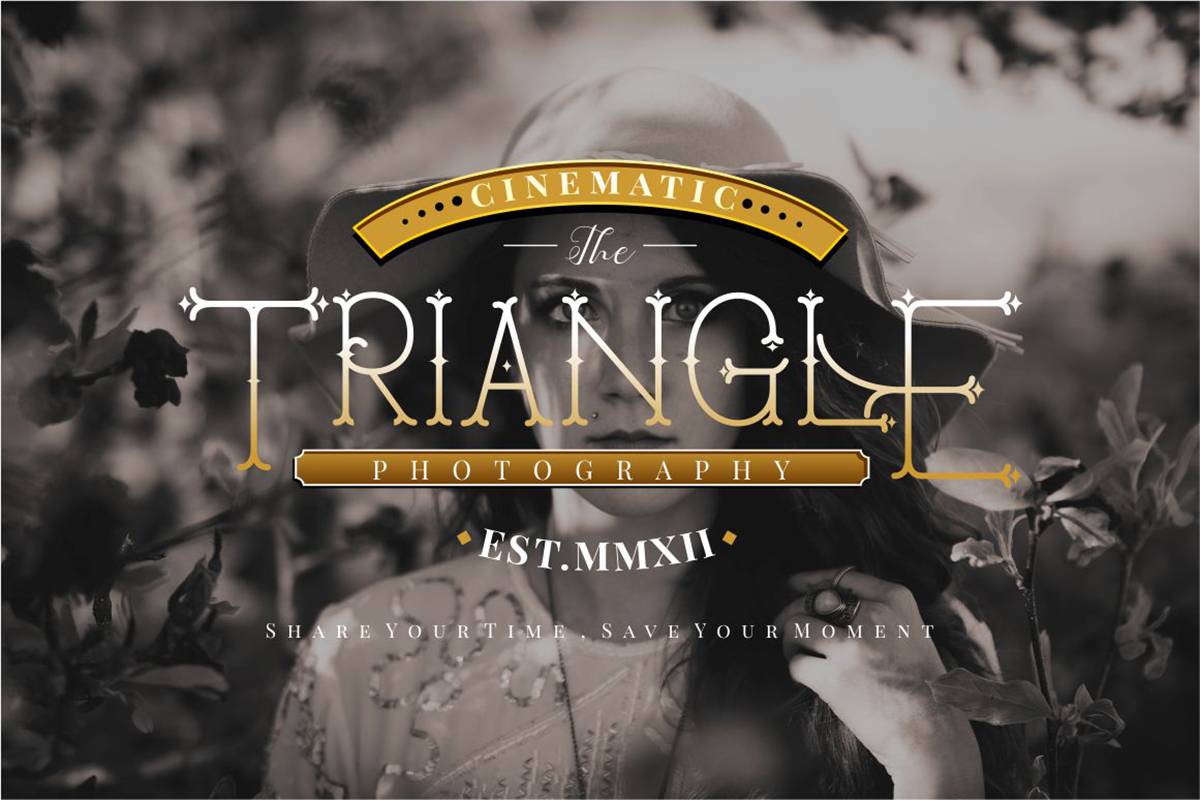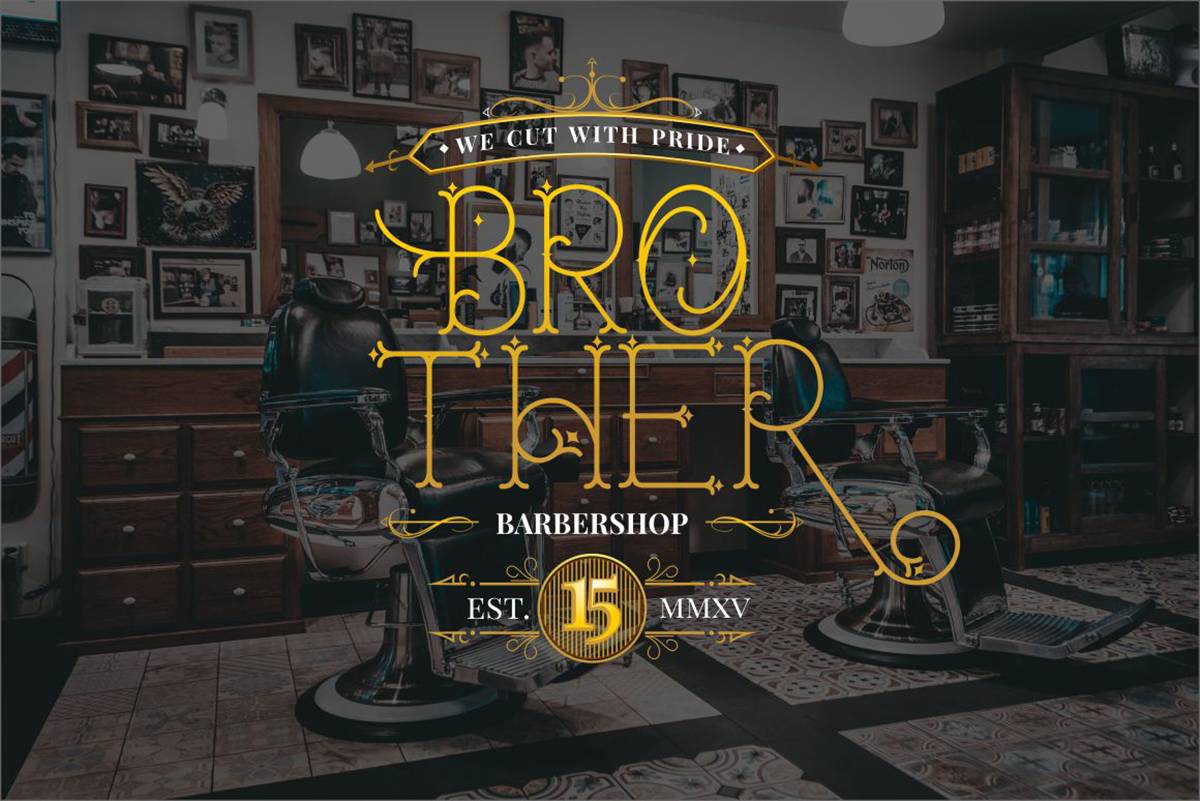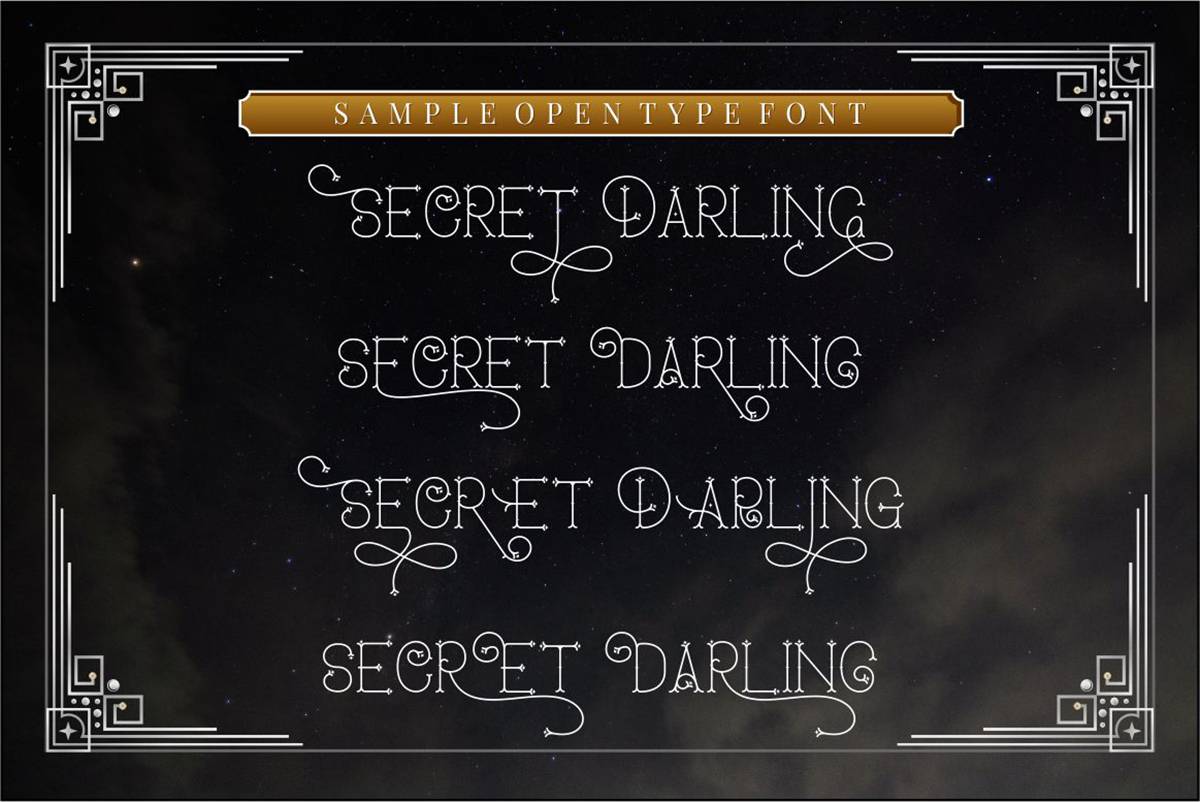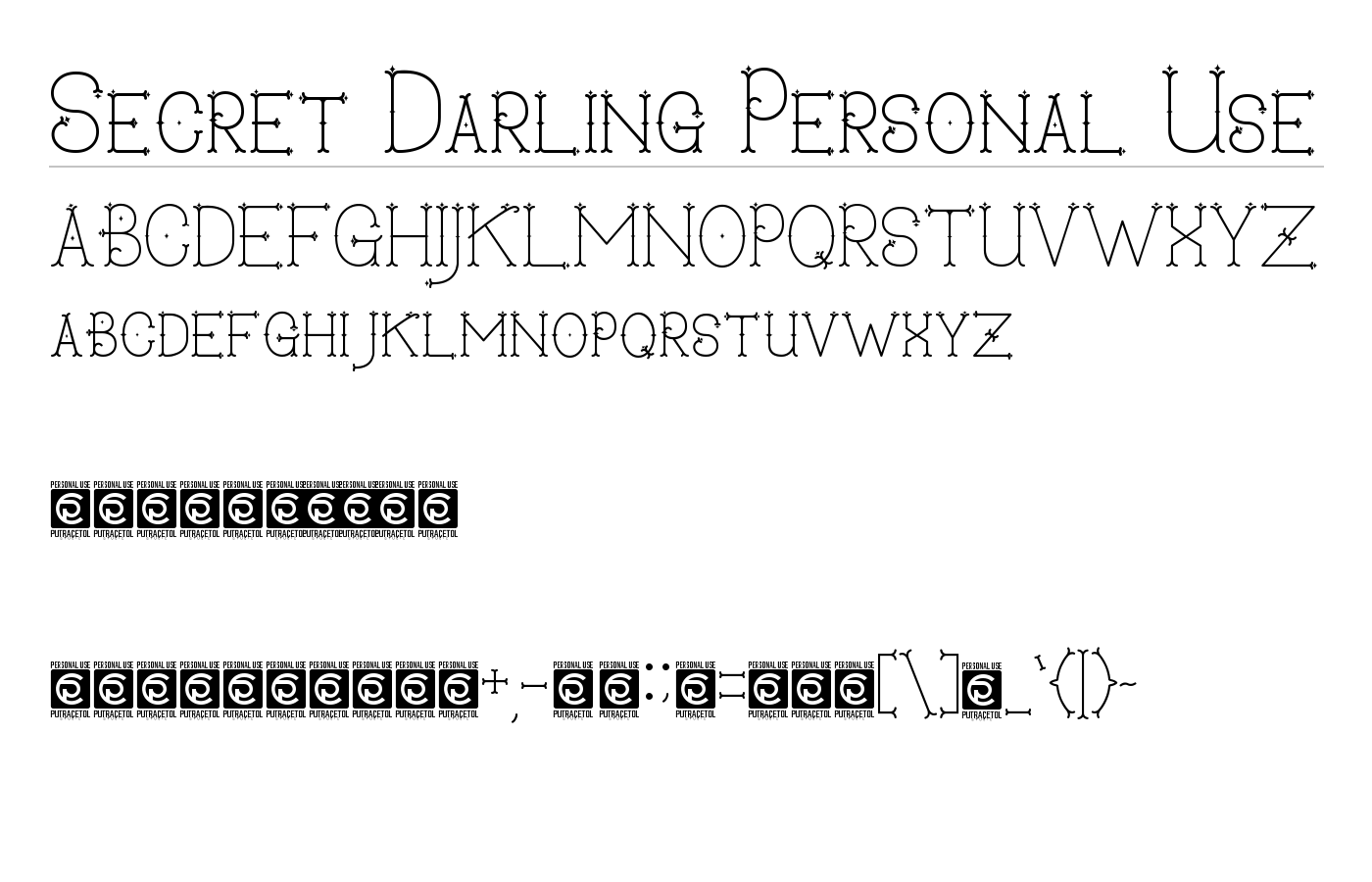
Secret Darling is a delicate, decorative serif font with a whimsical and vintage-inspired charm. Featuring thin, elegant lines accented by small diamond-shaped ornaments at stroke terminals, it has a light weight and tall, narrow proportions that add a touch of elegance and playfulness. Ideal for creative headlines, invitations, or branding that seeks to convey a unique, artistic, and slightly nostalgic feel.
Secret Darling Font
About Secret Darling Font